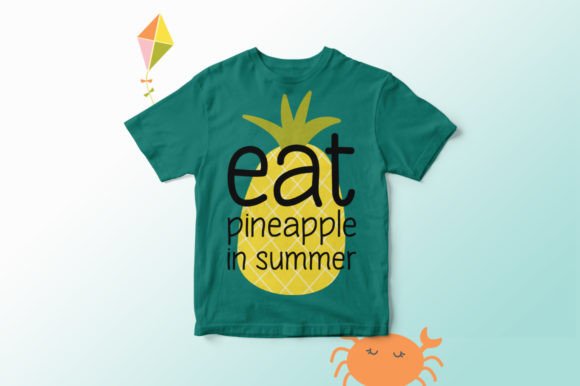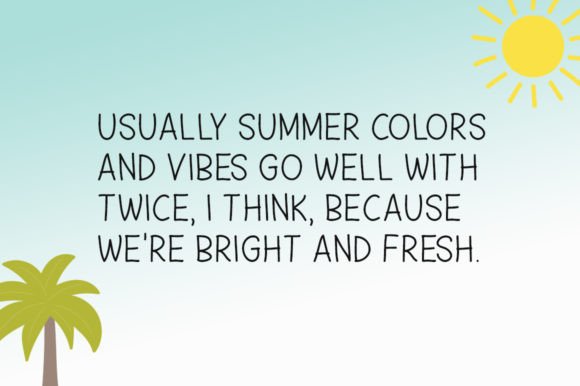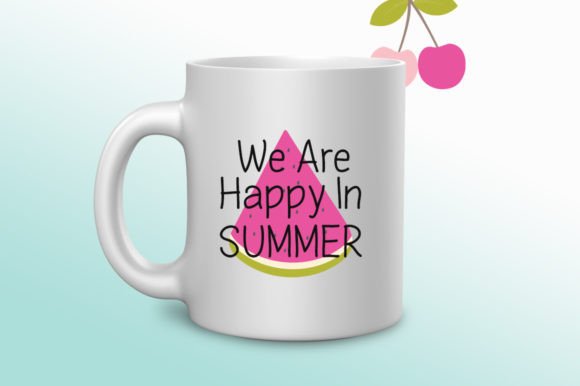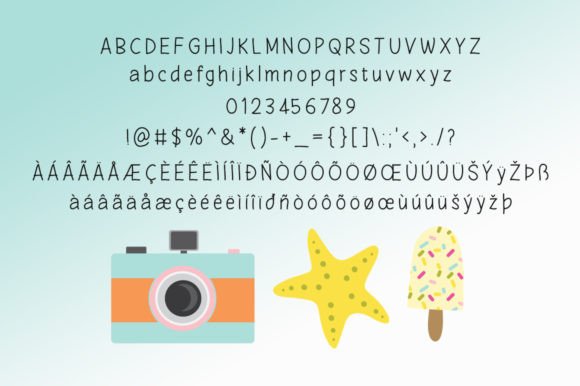
Summer Dreams Font
About Summer Dreams Font
Summer Dreams is a newly crafted handwritten font that is an ideal fit for a diverse range of design purposes. Whether you’re working on stationery, logos, t-shirts, print design, website headers, photo frames, flyers, music album covers, posters, image sliders, or any other creative project, Summer Dreams adds a fresh and vibrant touch.
The font’s handwritten style contributes to its versatility, making it adaptable to different design contexts. Summer Dreams is designed to bring a sense of warmth and creativity to your projects, creating a lively and engaging visual experience.
Imagine Summer Dreams enhancing your designs, whether it’s on playful t-shirts, dynamic music album covers, or eye-catching posters. The font becomes a creative tool that not only adds visual appeal but also infuses your ideas with a lively and spirited quality.
In summary, Summer Dreams is more than just a font; it’s a design asset that breathes life into your creative endeavors. Embrace its handwritten charm confidently, and let Summer Dreams be the typeface that transforms your favorite ideas into vibrant and captivating creations.